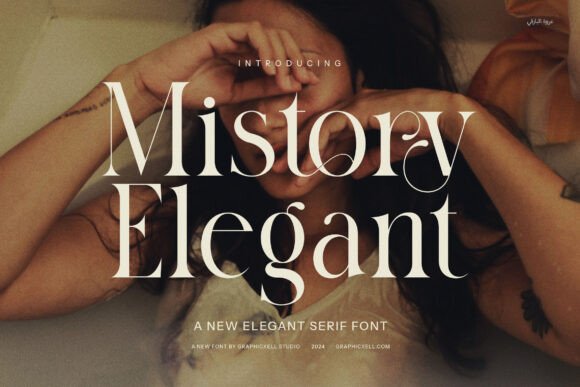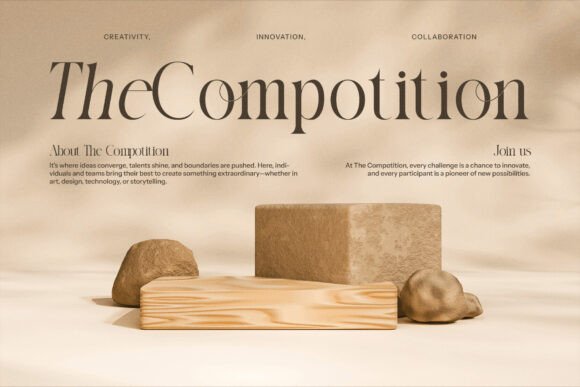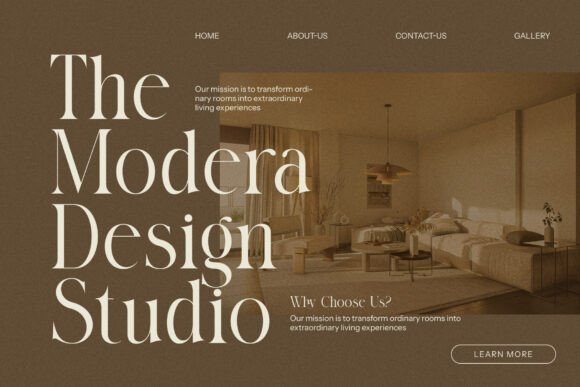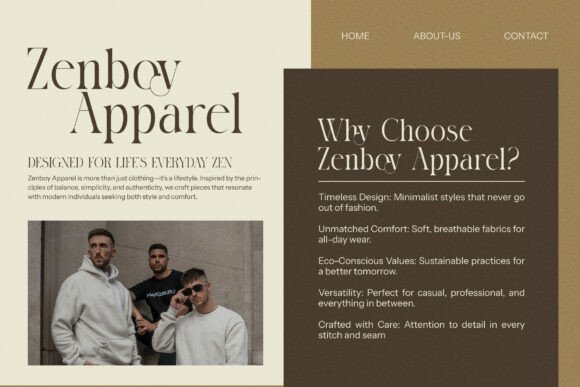
Mistory Elegant Font Font
About the Mistory Elegant Font Font
Experience the unique personality of Mistory Elegant Font Font, a font designed for impact. Mistory is a sophisticated typeface that effortlessly combines modern elegance with timeless charm. Designed with meticulous attention to detail, this serif font features graceful curves, refined proportions, and distinctive ligatures that add a unique flair to your creative projects. Its alternate forms open the door to endless design possibilities, allowing you to craft visuals that truly stand out.
Ideal for premium branding and luxurious design concepts, Mistory exudes elegance and sophistication. It’s the perfect choice for creating captivating logos, stylish magazine layouts, polished websites, and eye-catching advertisements. This font’s versatile nature makes it a great fit for industries ranging from fashion and beauty to high-end products, fine dining, and boutique businesses.
Mistory Elegant Font Font Usage Examples
Mistory Elegant Font Font Example